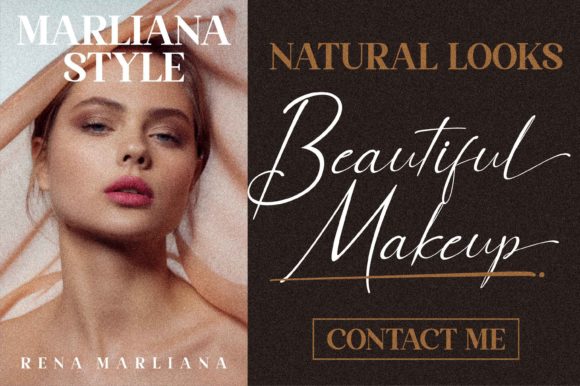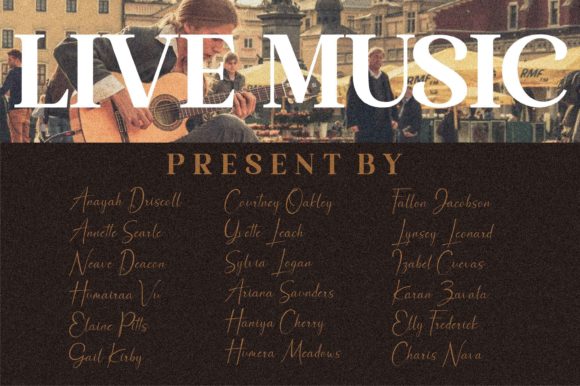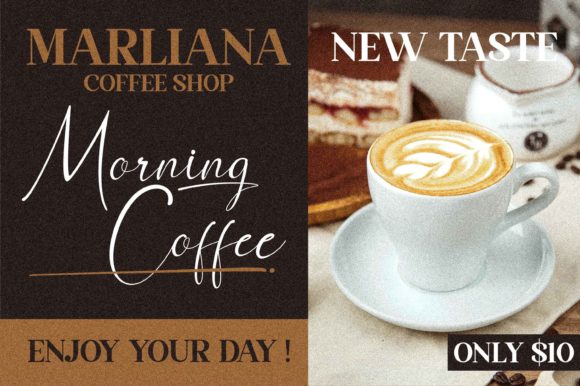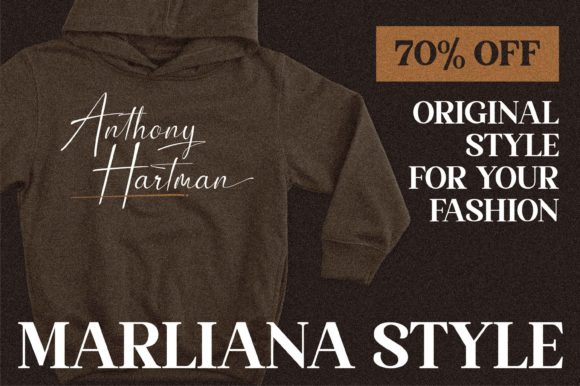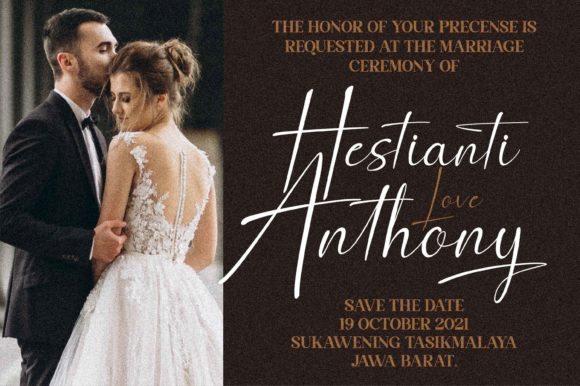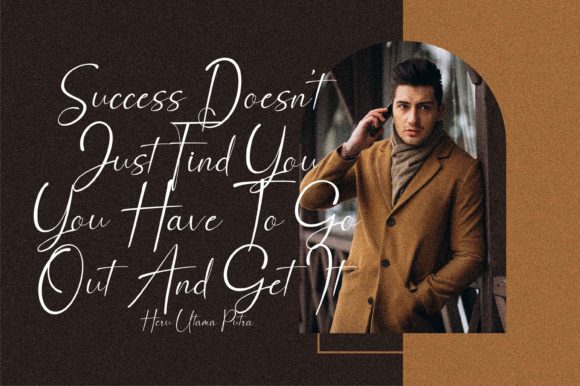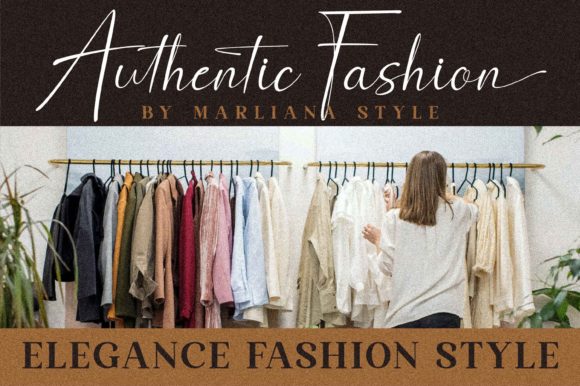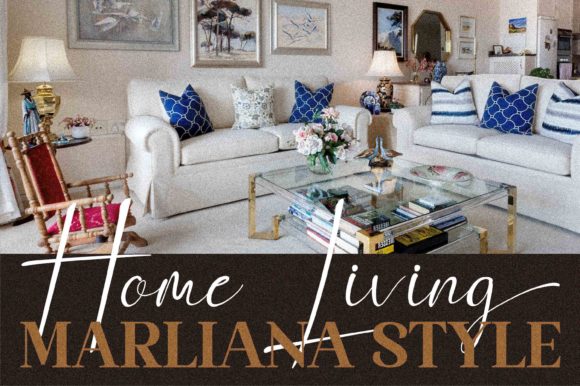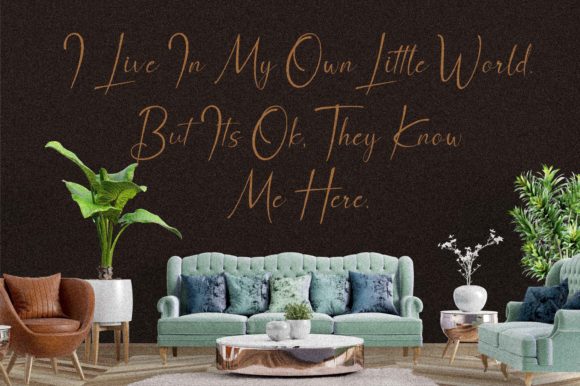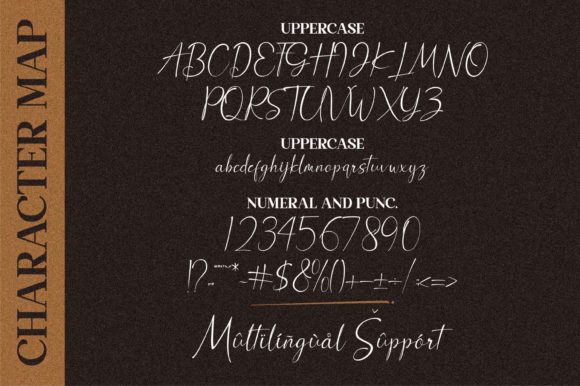
Anthony Hartman Font
About Anthony Hartman Font
Anthony Hartman is a stunning and refined script font that exudes beauty and sophistication. With its classy, elegant, and modern look, Anthony Hartman is a versatile font that can elevate various design projects, making it an excellent choice for logos, branding, invitations, stationery, wedding designs, social media posts, and much more.
In the realm of logos and branding, Anthony Hartman adds a touch of elegance and style. Its sleek and refined characters create a professional and memorable impression, making it perfect for businesses and brands looking to convey a sense of sophistication and modernity. Whether it’s on business cards, websites, or promotional materials, the font will help your brand stand out and leave a lasting impact.
For invitations and stationery, Anthony Hartman brings a touch of romance and beauty. Its graceful and flowing letters add a sense of charm to wedding invitations, thank you cards, and other special occasion stationery. The font’s PUA encoding allows easy access to all glyphs and swashes, giving you the freedom to customize and personalize your designs to perfection.
In the realm of digital media and social media posts, Anthony Hartman adds a touch of class and elegance. Whether it’s inspirational quotes, promotional posts, or announcements, the font’s modern look and refined style elevate the visual appeal of your social media content, making it more eye-catching and engaging.
One of the great features of Anthony Hartman is its PUA encoding, which ensures easy access to all the glyphs and swashes. This allows you to effortlessly incorporate alternates and ligatures into your designs, giving you endless possibilities for creativity and customization.
In conclusion, Anthony Hartman is a beautiful and refined script font with a classy, elegant, and modern look. Its versatility makes it suitable for various design projects, including logos, branding, invitations, stationery, wedding designs, social media posts, and more. The font’s PUA encoding ensures seamless access to all glyphs and swashes, empowering you to create stunning and personalized designs that leave a lasting impression on your audience. Embrace the beauty of Anthony Hartman to elevate your designs with elegance and sophistication.